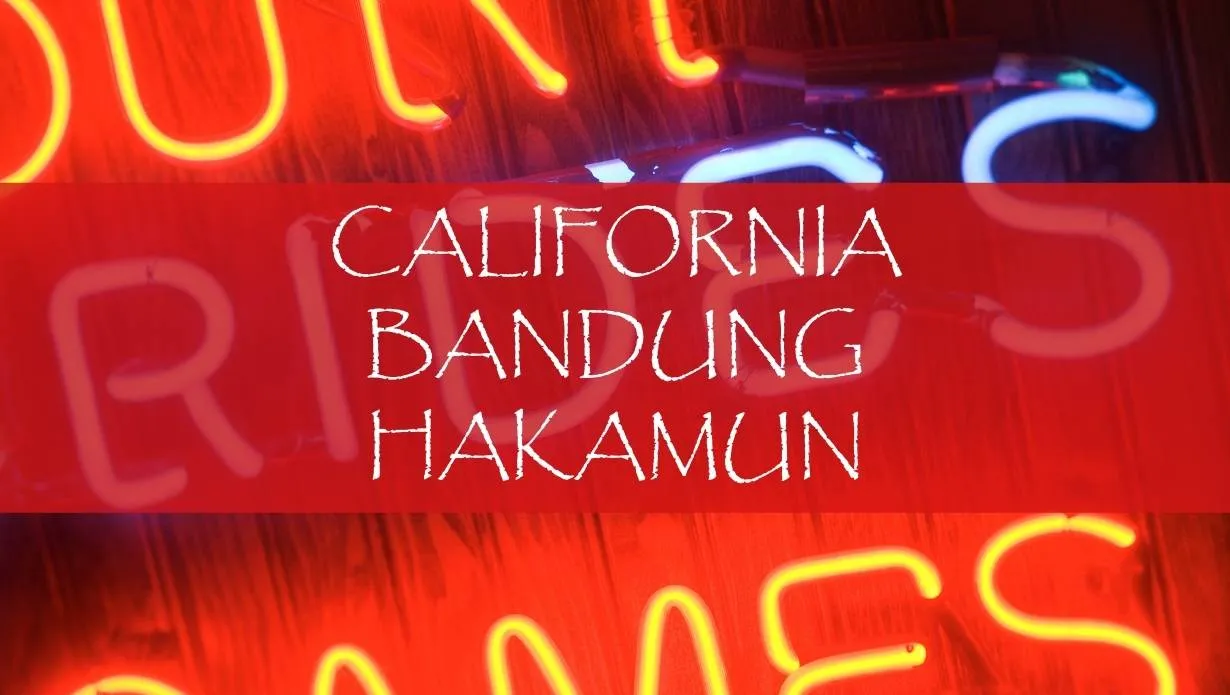
Papyrus font is a typeface designed by Christian Gobrecht in the 1830s. It was first used by the United States Mint for printing American currency.
This font is largely useable in Instagram posts these days. You can also create a new font to combine this font with Curlz Mt Font.
View of Papyrus Font
Papyrus Font Info
| Name | Papyrus Font |
| Designer | Christian Gobrecht |
| Style | Display |